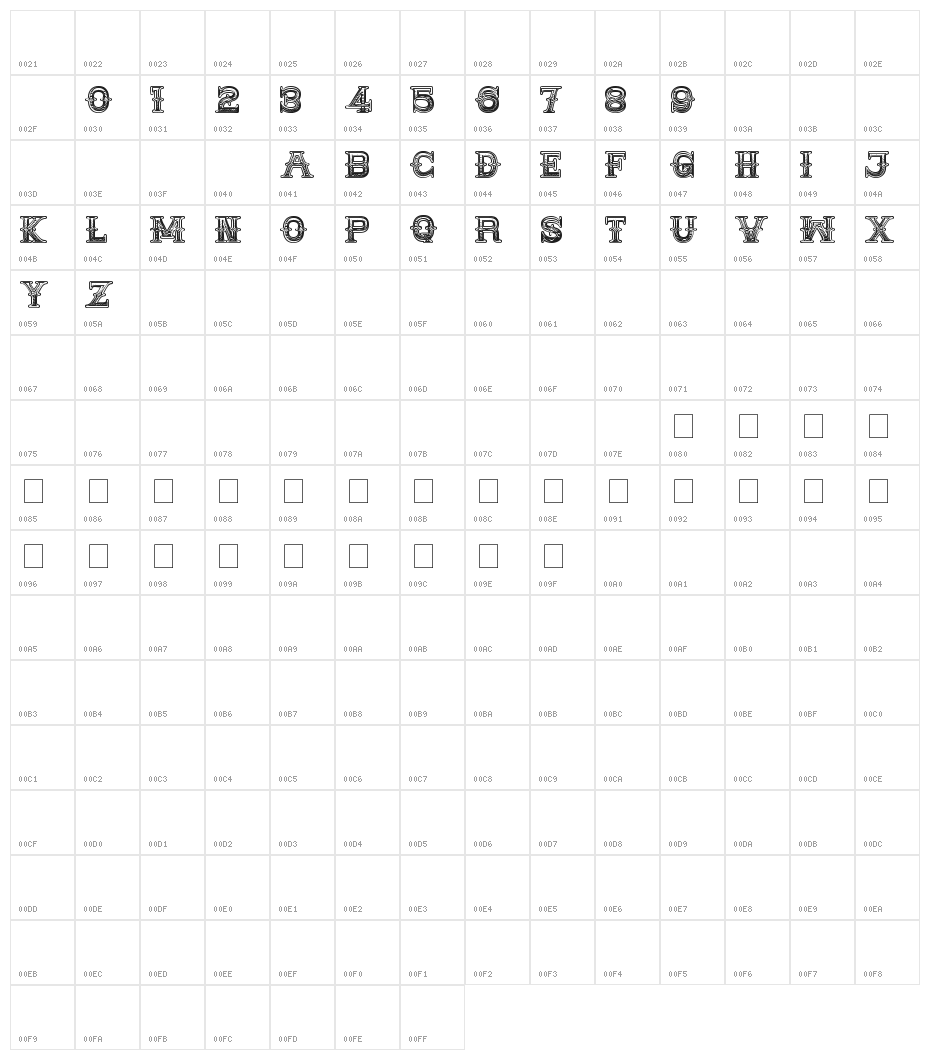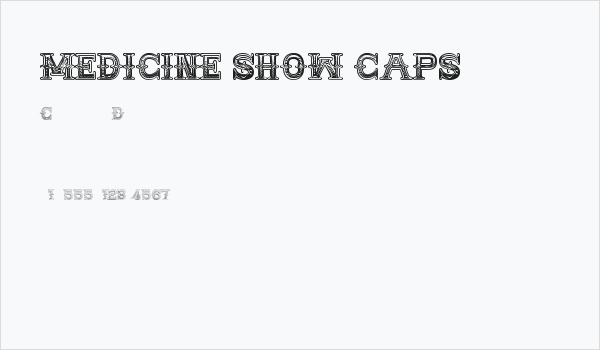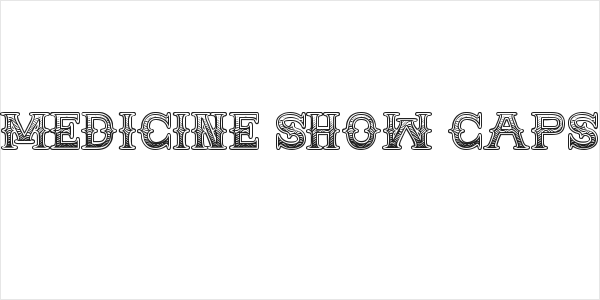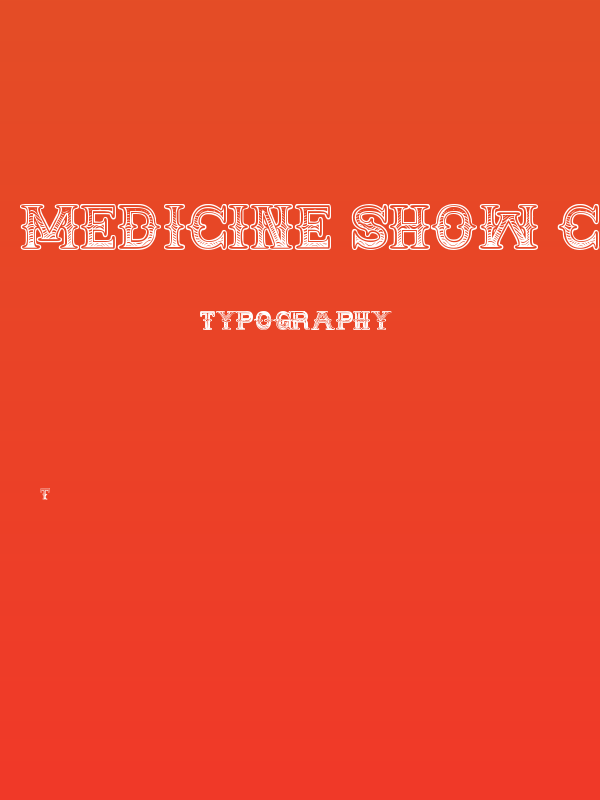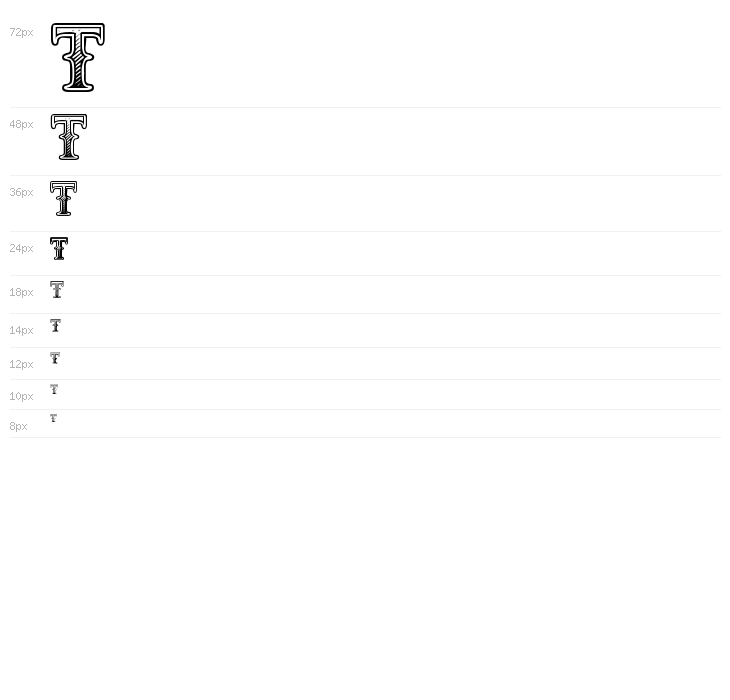
MEDICINE SHOW CAPS Font
MEDICINE SHOW CAPS Description
This font features a bold, decorative style with intricate detailing and a vintage flair. The uppercase letters are designed with a layered, shadowed effect that gives them a three-dimensional appearance. The numbers follow the same ornate style, making them stand out with their unique, artistic curves. The overall look is reminiscent of old-fashioned circus or carnival posters, evoking a sense of nostalgia and whimsy. The characters are well-spaced, ensuring readability despite their elaborate design. This font is perfect for projects that require a touch of retro charm and visual impact.
| Proposed Projects | Ideal for vintage-themed posters, event invitations, or branding that requires a nostalgic touch. |